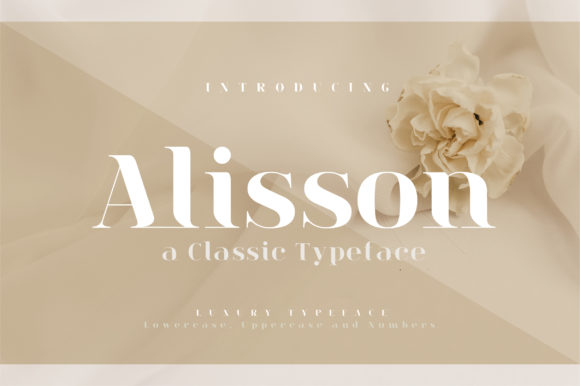
The Elegance of Alisson Font: A Designer’s Delight
I’ll never forget the time I was working on a wedding invitation project, and my client asked me to create a sophisticated, elegant look that would match their special day. I scoured the internet for the perfect font, and that’s when I stumbled upon Alisson Font. It was love at first sight! 💕 The classic serif lines, the luxurious feel, and the versatility – it was exactly what I needed. In this article, I’ll share my experience with Alisson Font, its features, and how to make the most of it in your designs.
An Honest Review of Alisson Font
- ✨ Elegant and classic serif design that exudes sophistication
- 💫 Beautifully crafted to work well on various design materials, from wedding invitations to business cards
- 🎨 Supports OpenType features, allowing for creative exploration
While Alisson Font is an excellent choice, there are a few things to keep in mind:
- ⚠️ Some users might find the font a bit too ornate for very casual projects
- 🤔 Limited availability of stylistic alternates, which might restrict design variations
The Backstory of Alisson Font
Alisson Font was designed with the intention of creating a versatile and elegant typeface suitable for various design applications. The designer aimed to craft a font that would add a touch of sophistication to any project, from wedding invitations to business branding. With its classic roots and modern touches, Alisson Font quickly gained popularity among designers and crafters.
Q: What makes Alisson Font suitable for wedding invitations?
A: Alisson Font’s elegant and classic design makes it perfect for wedding invitations, adding a touch of sophistication and romance to the event.
Q: Does Alisson Font support multiple languages?
A: Yes, Alisson Font supports various languages, making it a great choice for international projects.
Q: Is Alisson Font easy to read?
A: Absolutely! Alisson Font is designed for high legibility, making it perfect for both headings and body text.